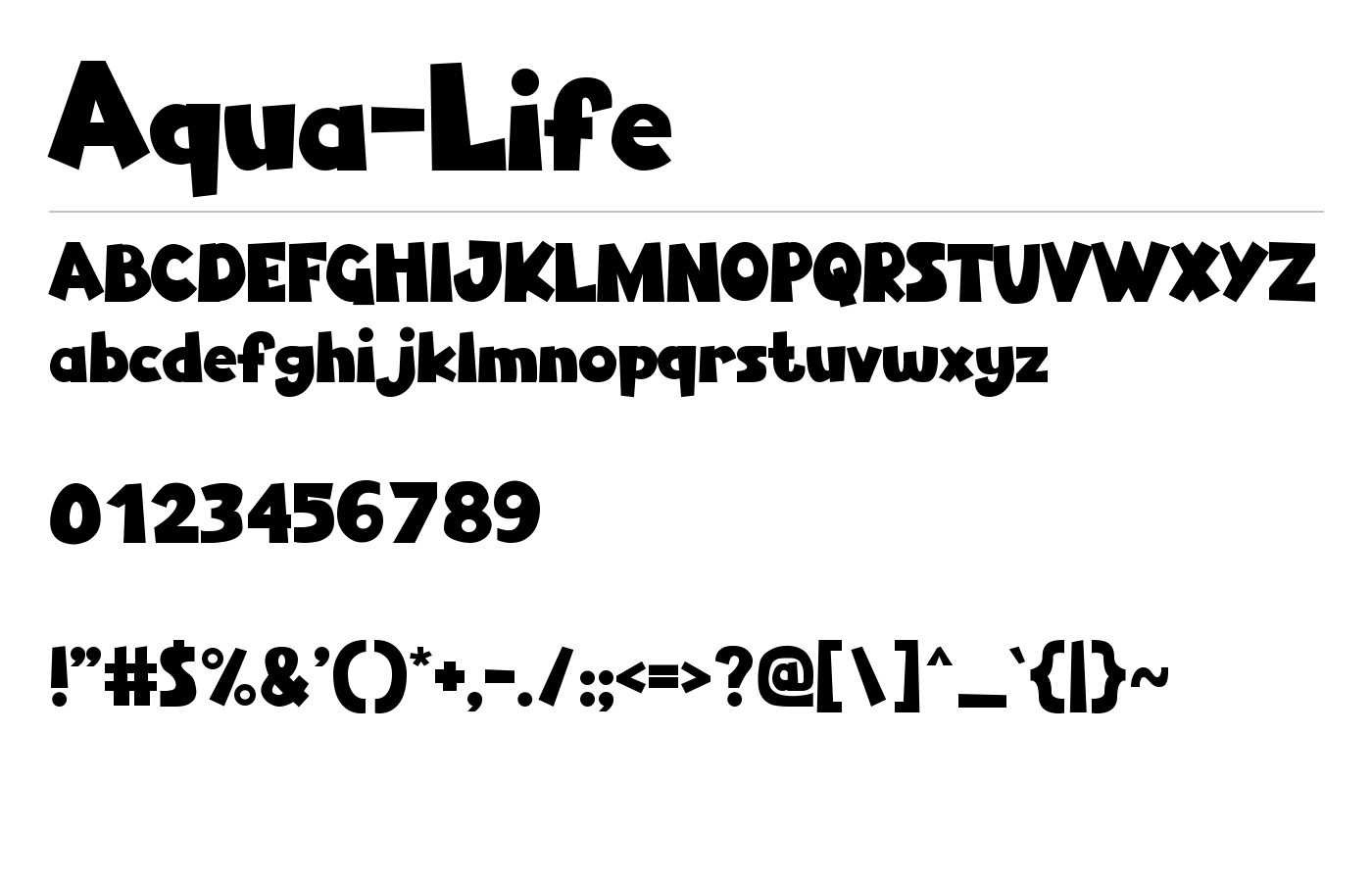
Aqua-Life is a bold, playful sans serif font with an energetic, slightly irregular style that gives it a fun, informal personality. Its thick, blocky letterforms with quirky angles and uneven baseline evoke a lively, youthful feel, making it perfect for creative projects, children’s materials, or casual branding that wants to stand out with a friendly, approachable vibe.
Aqua-Life Font
About Aqua-Life Font
| Font family | Aqua-Life Font |
| Designer | Tokopress Team |